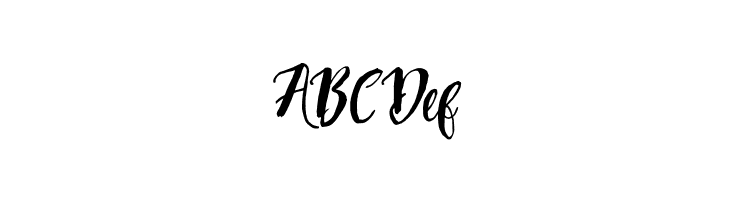
DirtylineRisingBrushFree Font
Font by Dirtyline Studio
A dynamic brush-style font with bold, expressive strokes and a hand-painted look.
Dirtyline_Rising Brush Free Font
Font by Dirtyline Studio
A dynamic brush-style font with fluid, expressive strokes and a modern calligraphic flair.